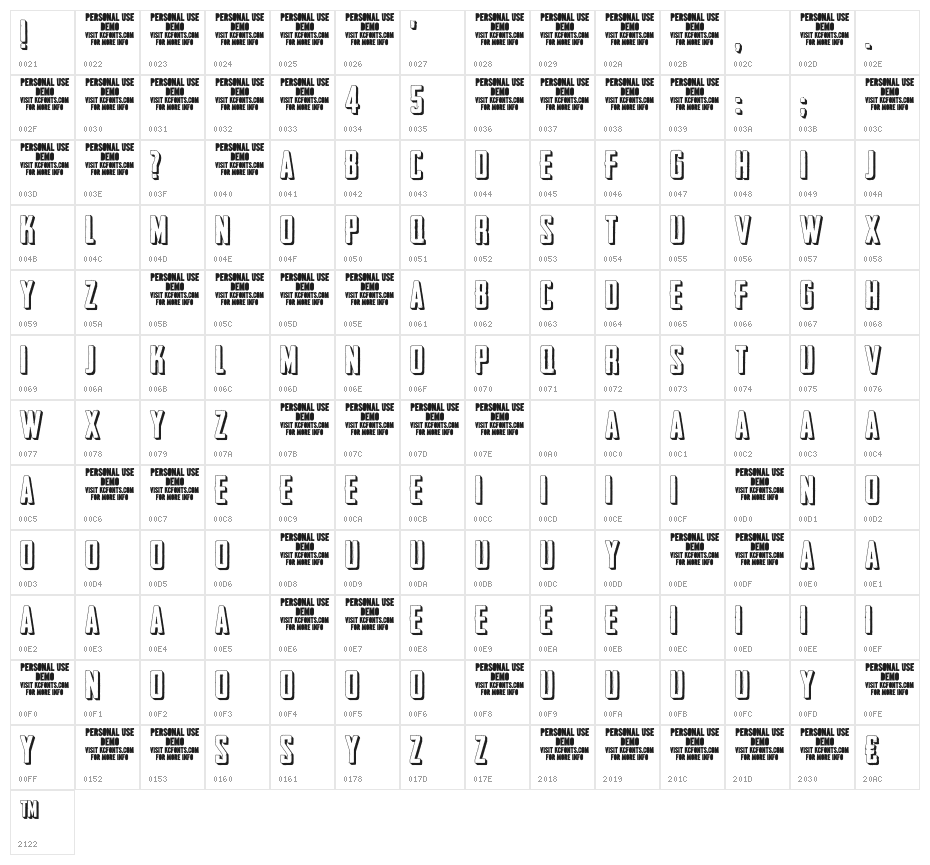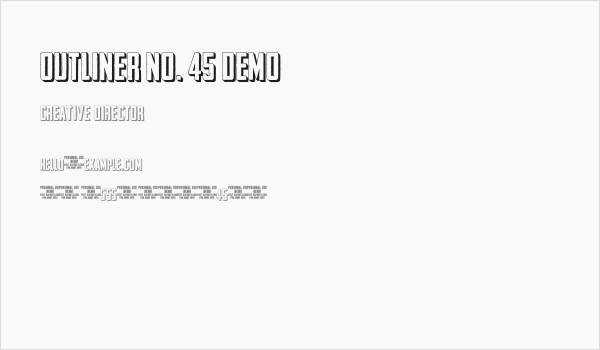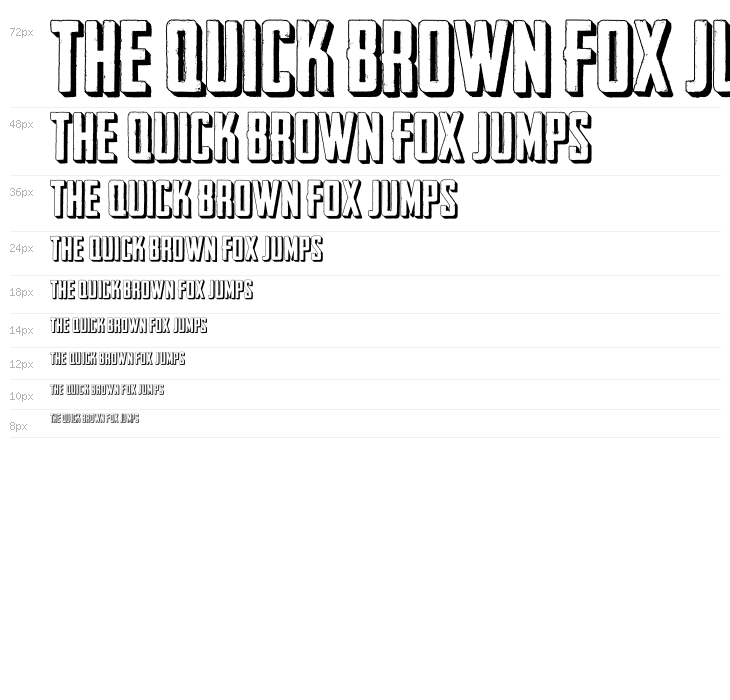
Outliner No. 45 DEMO Font
Outliner No. 45 DEMO Description
This font features a bold, distressed style with a strong, impactful presence. The characters are outlined with a rugged texture, giving them a vintage and worn appearance. The uppercase letters are prominent, with a consistent height and width, creating a uniform look across the alphabet. The font's design is reminiscent of old-school posters or signage, making it ideal for projects that require a retro or industrial feel. The rough edges and textured details add character and depth, making it stand out in any design context.
| Proposed Projects | Ideal for vintage posters, retro signage, branding, and any project needing a bold, industrial aesthetic. |